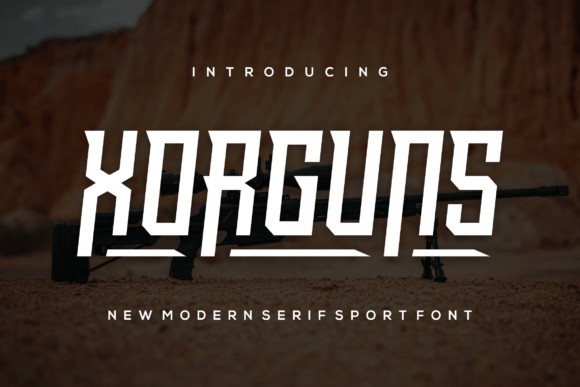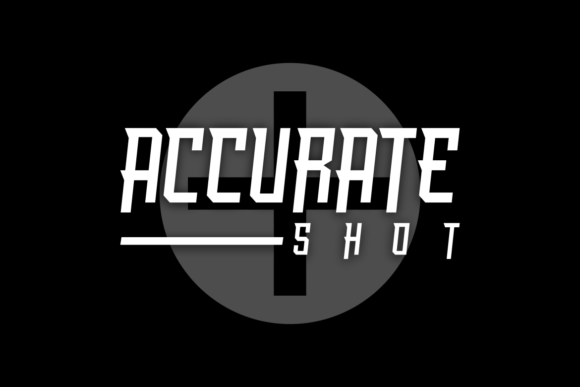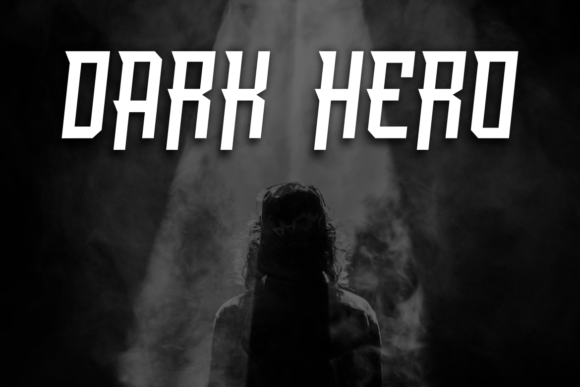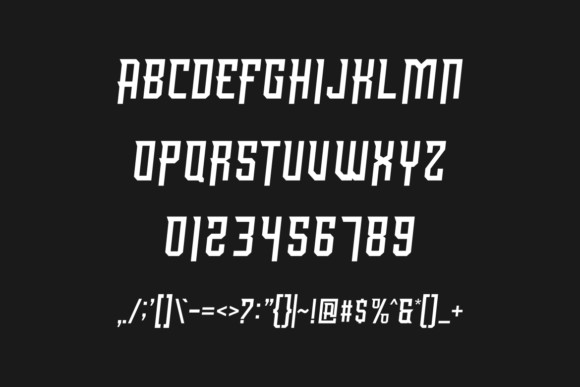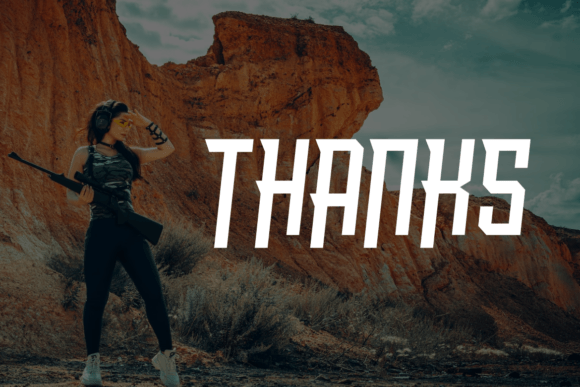
Xorguns
Xorguns: A Bold and Authentic Slab Serif Font
Xorguns is a bold and authentic slab serif font designed for branding projects. This versatile typeface looks outstanding across various applications, from logos and t-shirt printing to esports designs.
Key Features of Xorguns
• Bold Design: Offers thick, block-like serifs for impact[2].
• Authentic Style: Brings genuine character to designs.
• Versatile Appeal: Adapts well to numerous contexts.
• Strong Presence: Creates commanding visual impact[2].
Best Uses for Xorguns
Thanks to its bold characteristics, Xorguns works especially well for:
When using Xorguns in your designs, keep these tips in mind:
• Try it for headlines or display text to showcase its bold style[3].
• Use its authentic character for distinctive branding.
• Take advantage of its sturdy structure for impactful designs[2].
• Let its versatility enhance various contexts.
To sum up, Xorguns is an excellent choice for designers seeking a bold and authentic slab serif font. Its versatility makes it perfect for various branding projects. Whether you’re creating logos, designing t-shirts, or developing esports materials, Xorguns offers the perfect blend of boldness and authenticity.
Furthermore, Xorguns’s distinctive design allows it to shine in contexts where both impact and authenticity are key. From brand identity to marketing materials, this font can elevate your projects with its commanding style. Also, its bold yet readable appearance works particularly well in designs that aim to make a strong impact.
In conclusion, Xorguns truly captures the essence of bold branding in slab serif typography. Its ability to work well across so many different uses shows how flexible it can be. Therefore, for those wanting to add a touch of bold authenticity to their work, Xorguns can enhance any design with its distinctive style. Ultimately, it’s perfect for designers aiming to make a strong, memorable impact across many different kinds of creative projects.